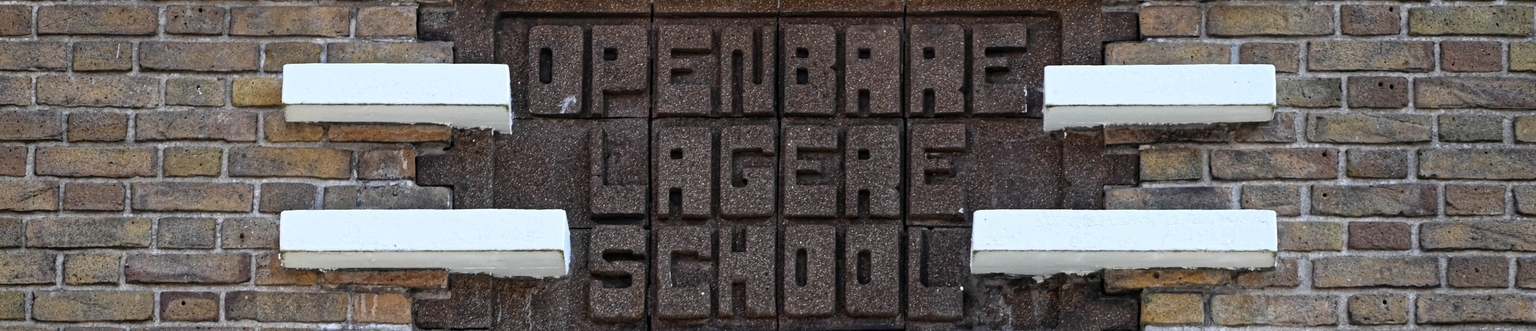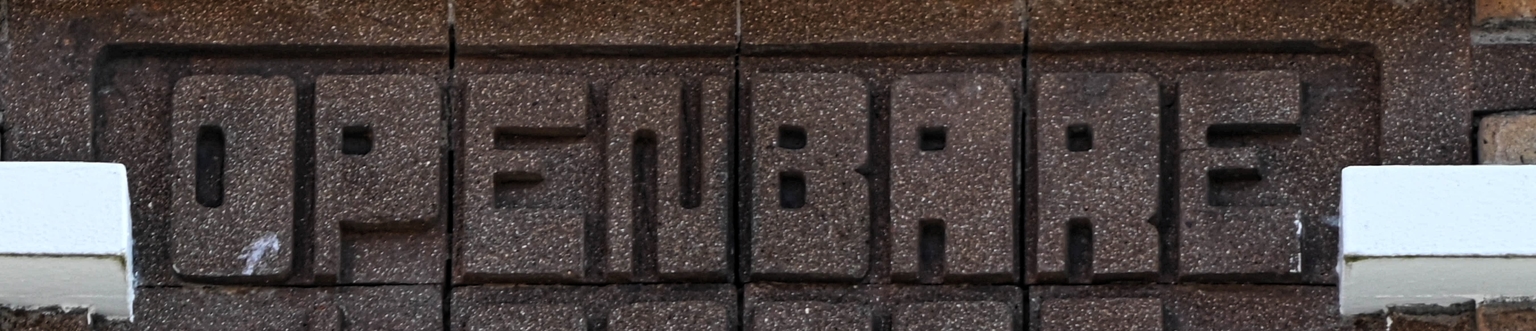
Baksteen
Baksteen is a modular typeface designed by Ramiro Espinoza and inspired by the lettering on the façade of a former public primary school at Driftstraat 77 in Leiden, the Netherlands. The building was designed by architect J. Neysingh and inaugurated in 1927. Its original inscription is integrated into the brick façade and reflects the straightforward, functional approach to lettering common in early twentieth-century public architecture. Despite its age, the lettering has a surprisingly contemporary appearance, with forms that recall the visual language of 1970s electronics and technical graphics.
Espinoza analyzed the proportions and construction of the original letters and translated them into a modular digital system. The resulting typeface preserves the solid, architectural character of the source while providing improved consistency and a broader character set for contemporary use.
Baksteen is suitable for posters, websites, editorial design, branding, signage, games, electronic appliances, and digital applications that benefit from clear structure and an architectural tone. It offers a practical link between historical building lettering and modern typographic needs.